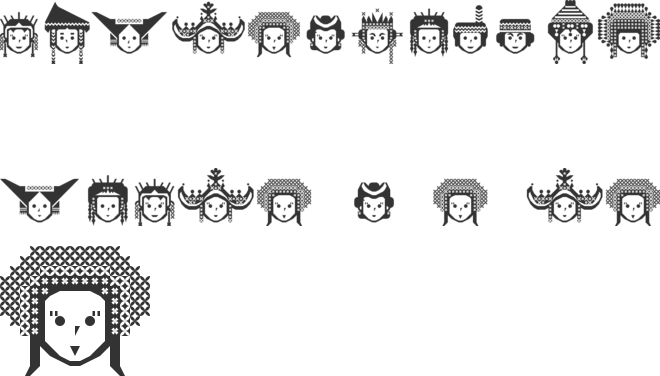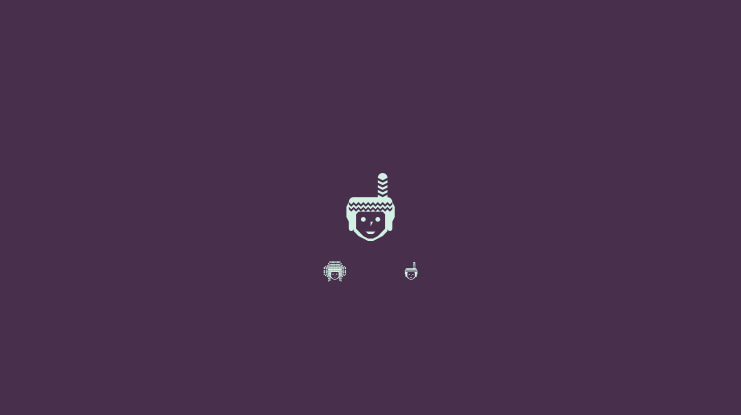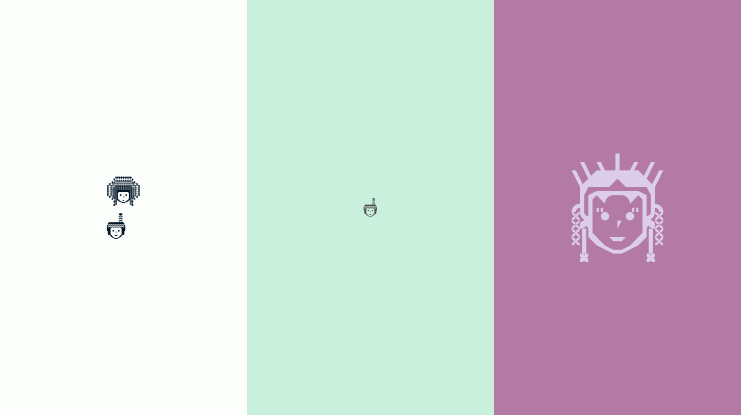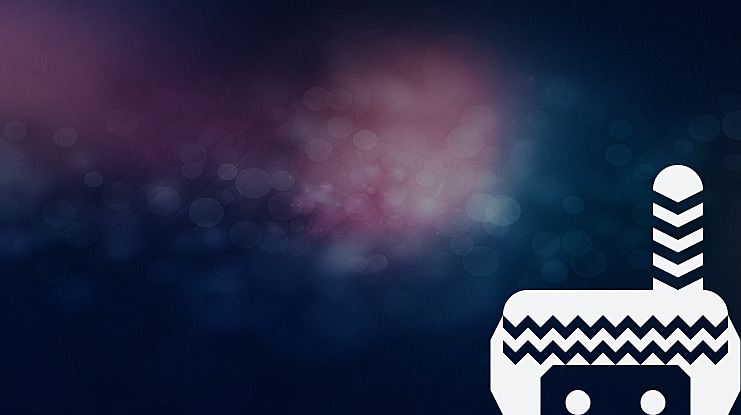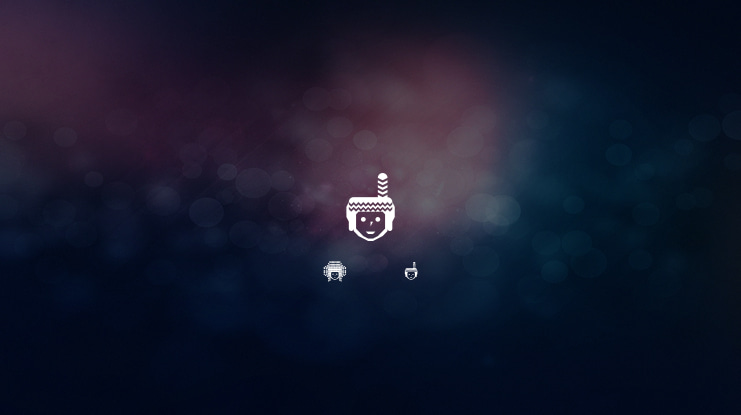
Indonesian Woman Font Family
Adien Gunarta
This font contains 12 women traditional style from any place in Indonesia.
A = Javanese Women (Java) B = North Sumatra woman C = Minang woman (West Sumatra) D = Malay woman (Lampung) E = Balinese woman (Bali) F = East Nusa Tenggara woman G = Jambi woman (Jambi) H = Javanese woman 2 (West Java) I = Dayak woman (West Kalimantan/Borneo) J = Dayak woman 2 (East Kalimantan/Borneo) K = Batak Karo woman (West Sumatra) L = Minang woman wedding style (West Sumatra)